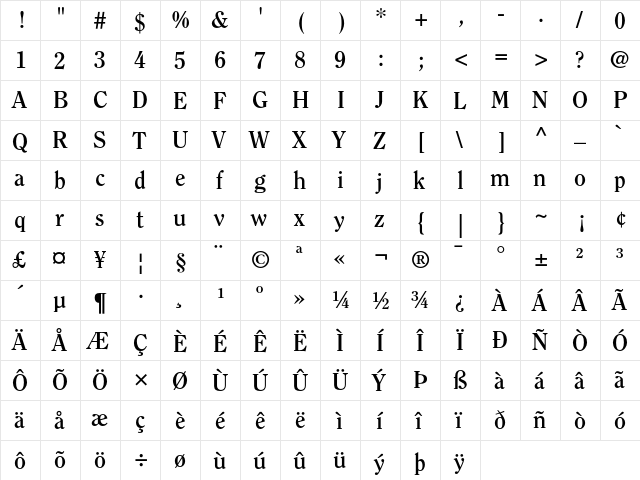
ITC Clearface Bold Font Preview
ITC Clearface Bold
Design Context for ITC Clearface Typeface
ITC Clearface offers clean, dependable letterforms without strong stylistic allegiance, making it a practical choice for designers who need flexibility. The heavy weight commands attention and anchors typographic hierarchies.
Pro Tip: Use ITC Clearface in both headline and body roles to test its range before committing to a single application.